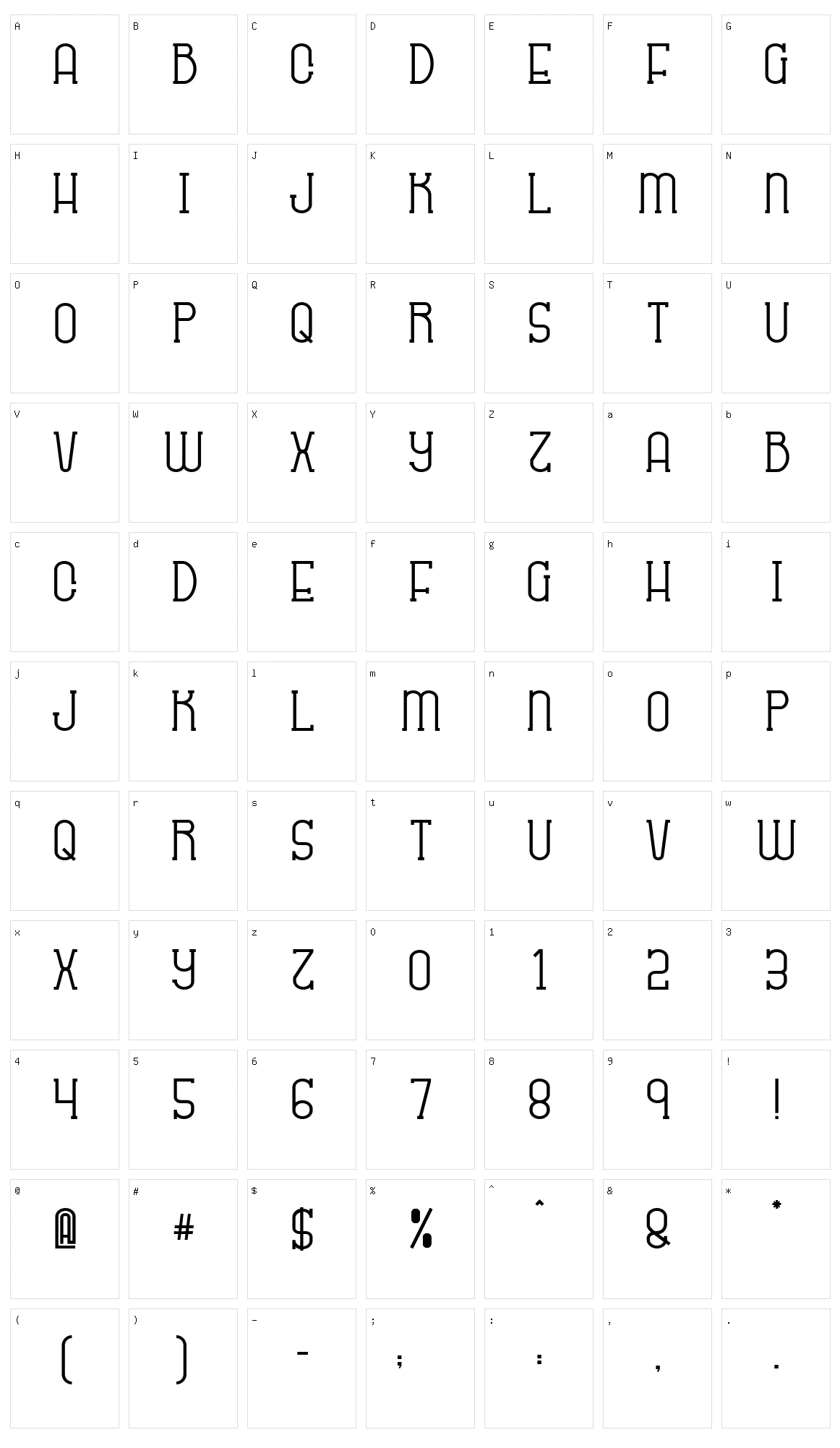
The free font Sabitype is carefully designed by Sabit Kovacevic, showcasing a thoughtful balance of creativity and usability and falls under the Retro font style. When you download the ZIP file, it contains only 16.1 KB of font files, making it lightweight and quick to download. Please review the license details below to understand permitted usage and distribution rights. If license information is not available, we recommend using this font for personal projects only or contacting the author directly for commercial usage permissions.